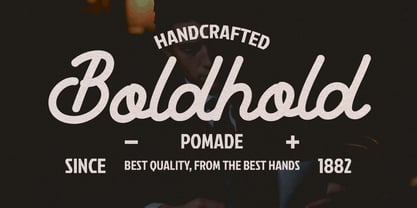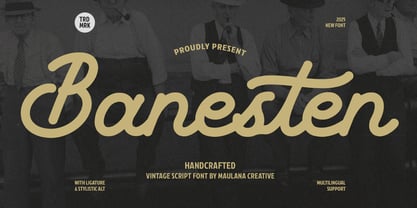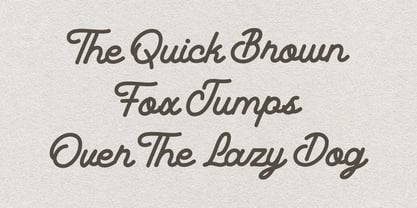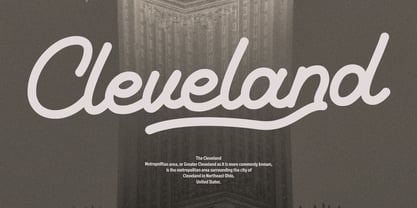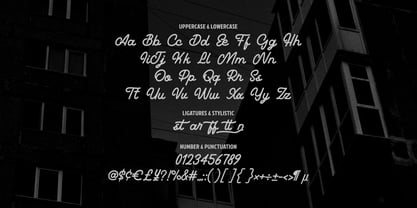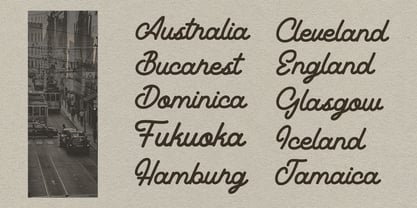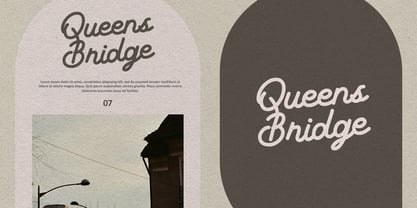
MC Banesten
by Maulana Creative
The MC Banesten Font Family was designed by Gilang Maulana and published by Maulana Creative. MC Banesten contains 1 styles. More about this family
Give your designs an authentic handcrafted feel. “Banesten Handcrafted Vintage Script Font” is perfectly suited to stationery, logos and much more. Include alternative character and ligatures.